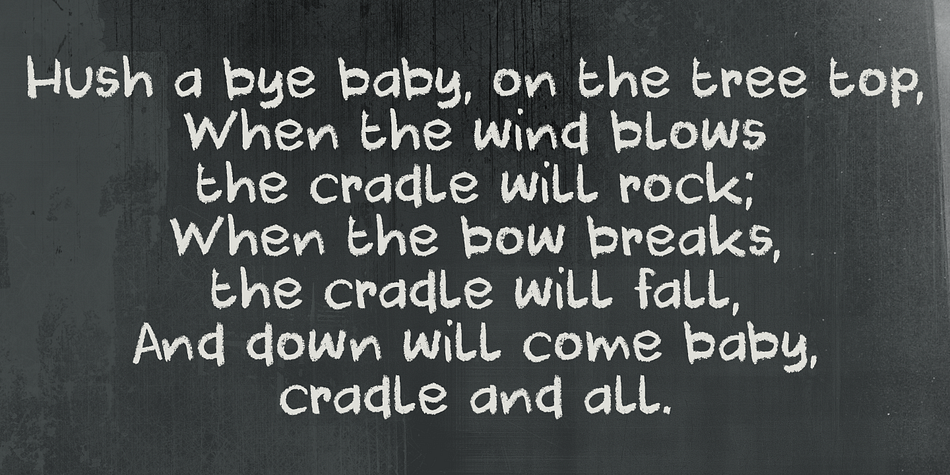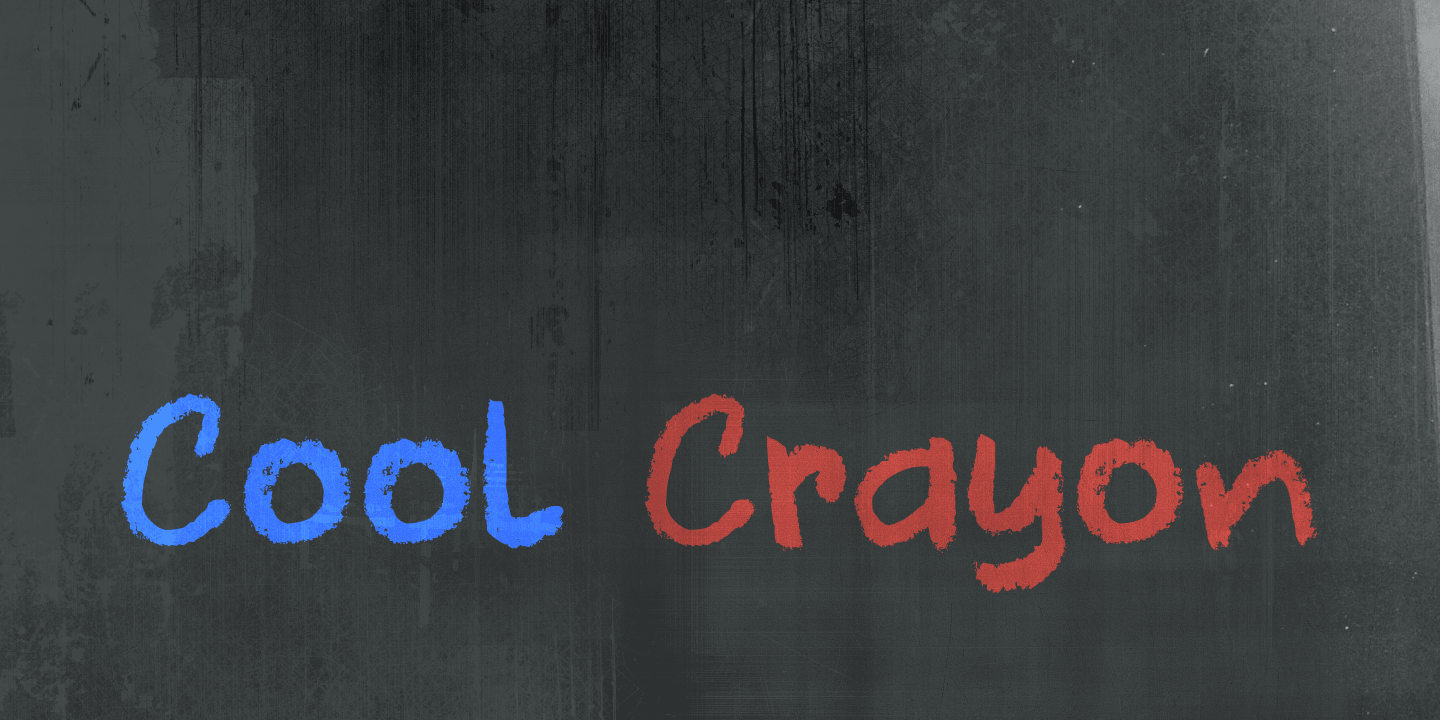
Cool Crayon is a hand drawn font published by Hanoded.
Cool Crayon is a nice typeface I created with the black crayola from my 3 year old son’s crayola box. It was broken (because he tends to throw them around), but I managed to get the glyphs onto a sheet of paper.
Cool Crayon is similar to Crayon Crumble, but is rounder and thicker. Cool Crayon comes with extensive language support.